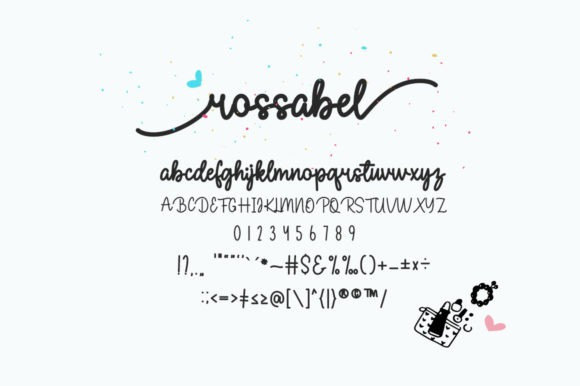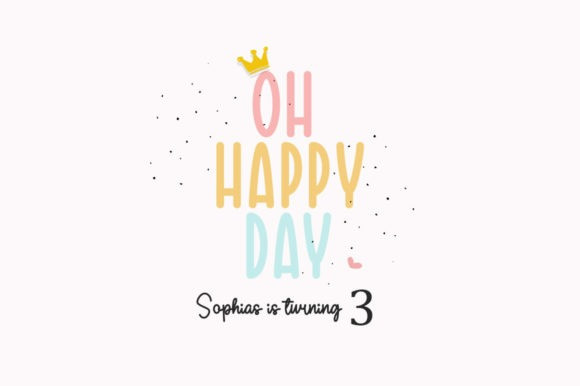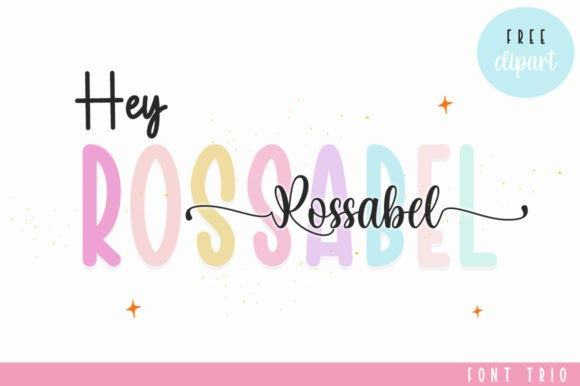
Rossabel Font
Rossabel consists of three fonts (handwritten, script, and display) designed to complement each other perfectly. Together or apart, these fonts are ideal for adding a chic and cheery touch to your crafts. This font is PUA encoded, which means you can access all glyphs and swashes with ease!